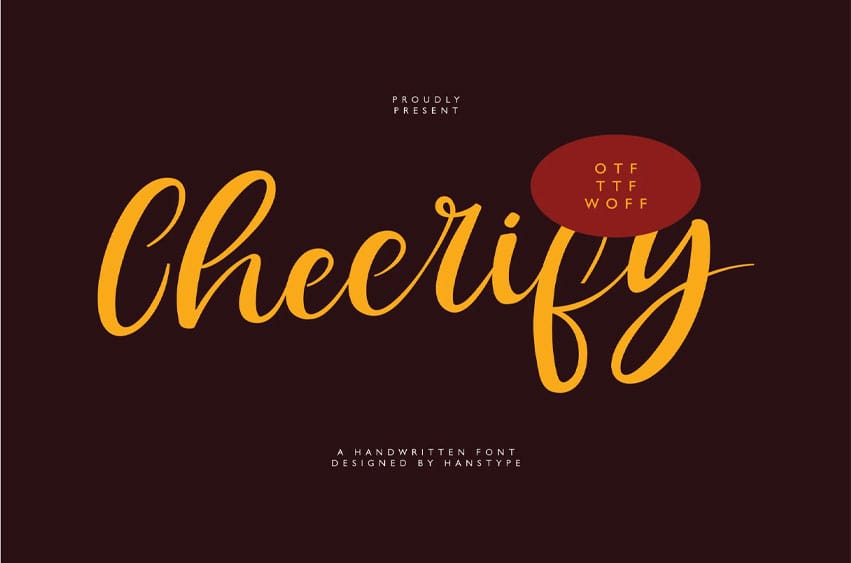
Cheerify Font is a lively, handwritten font that combines casual charm with a touch of elegance. Its flowing, organic strokes create a welcoming and friendly vibe, making it perfect for designs that aim to be both personal and uplifting.